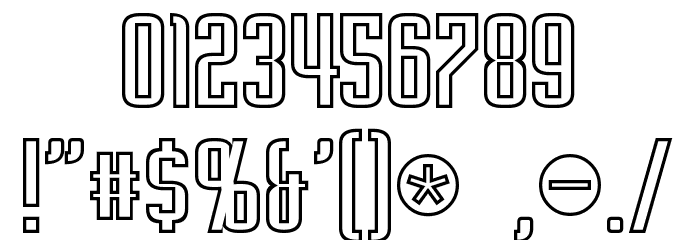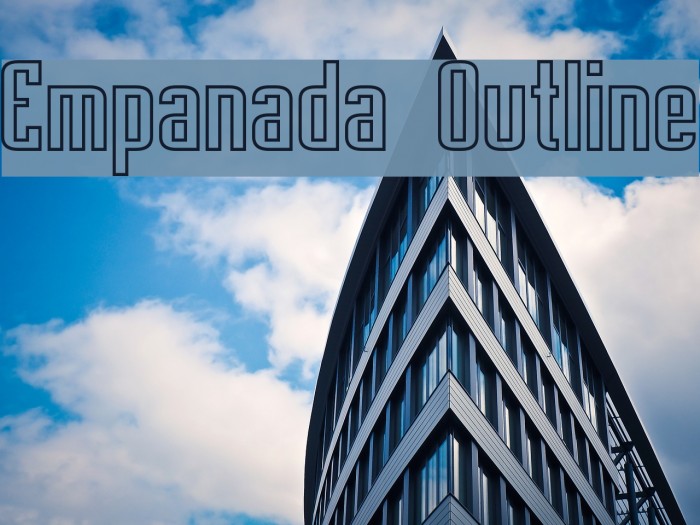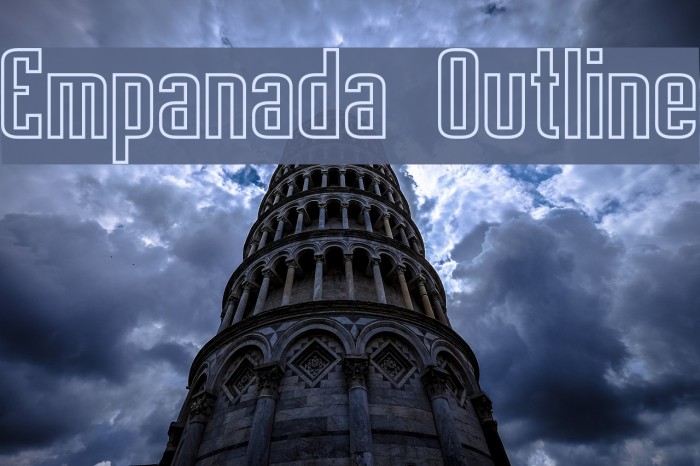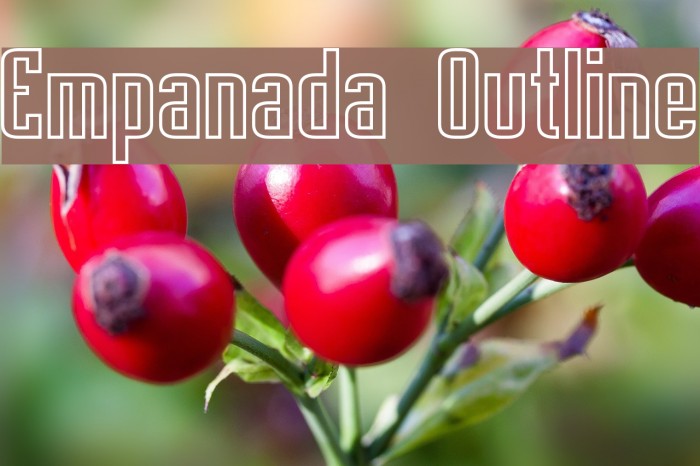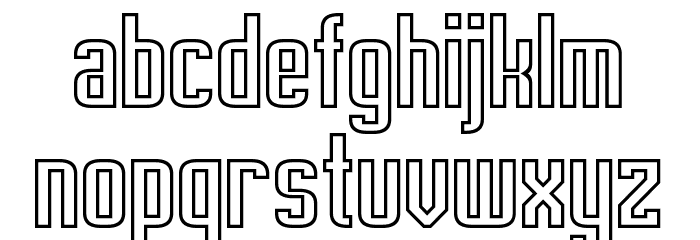
Empanada Outline Font
This font features a bold, outlined style that gives it a striking and modern appearance. The characters are uppercase and lowercase letters, numbers, and a variety of special symbols. Each letter is defined by a thick, uniform outline that creates a hollow effect, making it ideal for designs that require a bold statement without overwhelming the viewer. The geometric shapes of the letters add a contemporary feel, while the consistent line thickness maintains a clean and organized look. This font is particularly suitable for projects that aim to capture attention and convey a sense of modernity and innovation.
A bold, outlined font with a modern and geometric style.
• Proposed Projects: Ideal for headlines, posters, branding, and any design needing a bold, modern touch.
• Category: Decorative/Display
• Bold: Yes
• Italic: No
• Weight: Bold
• Width: Normal
• Character Spacing: Normal
• Contrast: Low
• Overall Style: Modern
• Use Case: Headlines, Logos, Posters